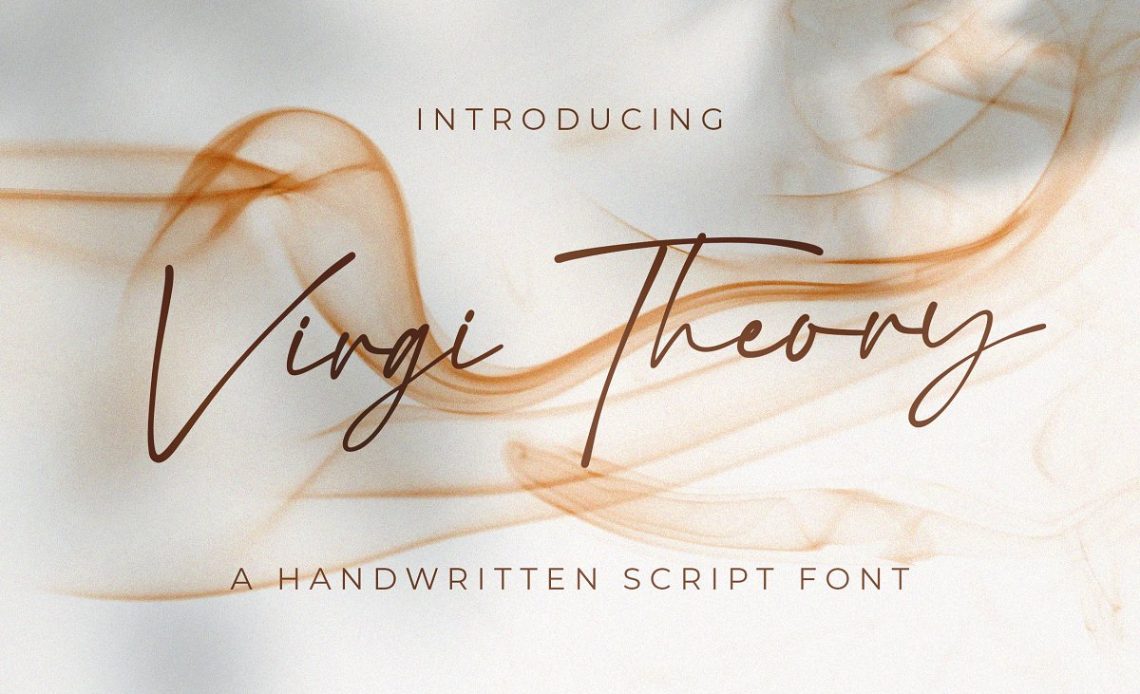
Introducing Virgi Theory - Handwritten Font, the epitome of elegance and grace in the world of typography. Created by the talented Virgiawan Listanto, this font is a true masterpiece that will undoubtedly elevate your designs to new heights.
With its delicate and flowing strokes, Virgi Theory adds a touch of sophistication to any project. Whether you're designing a logo, creating stunning typography, or simply looking to make a statement, this font is your perfect companion.
One of the standout features of Virgi Theory is its versatility. It seamlessly blends into a wide range of design styles, making it suitable for a variety of projects. Its well-balanced characters ensure that every word you create is a work of art.
Whether you're using uppercase or lowercase letters, numbering or punctuations, Virgi Theory has got you covered. It even offers multilingual support, ensuring that language is never a barrier to your creativity.
When you choose Virgi Theory, you're not just getting a font – you're unlocking a world of endless possibilities. Let your imagination run wild and watch as your creative ideas come alive with this captivating and enchanting font.